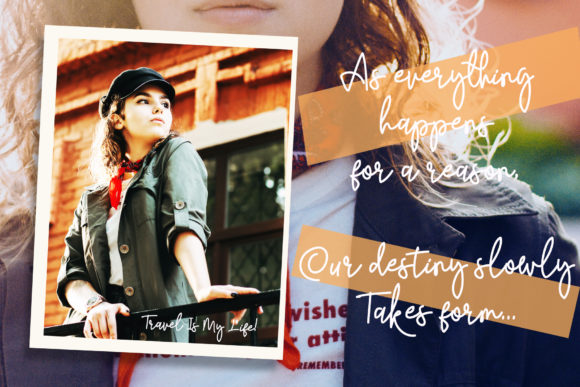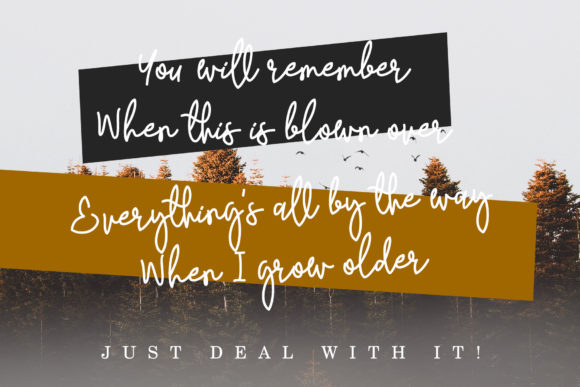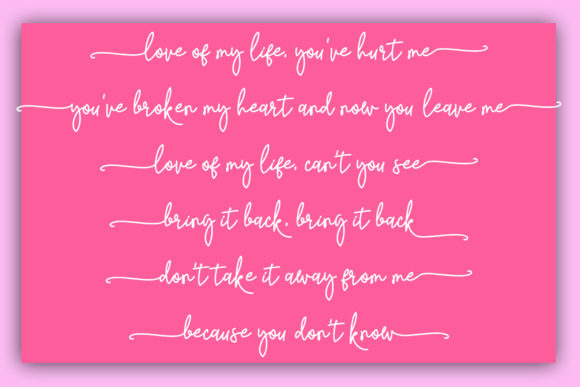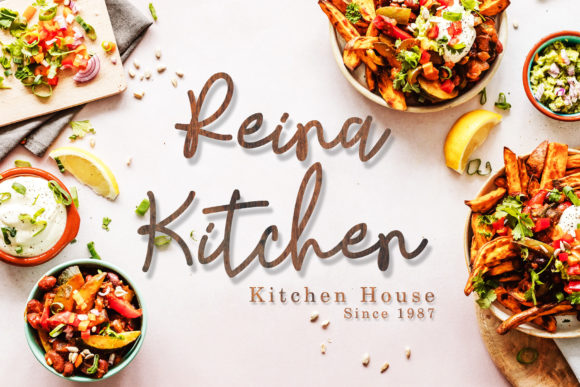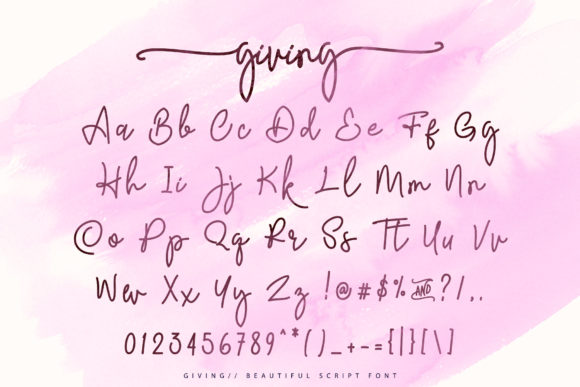
The Perfect Script Font for Your Next Design Project
Have you ever sat at your desk, staring blankly at a blank canvas, waiting for inspiration to strike? We’ve all been there. The blank page can be intimidating, but it’s moments like these that remind us why we love being creative in the first place. The thrill of bringing an idea to life, the satisfaction of seeing it come together – it’s a feeling like no other.
For designers, finding the right tools can make all the difference. That’s where the Giving Script Font comes in – a beautiful, elegant font that’s perfect for adding a touch of sophistication to your designs. With its natural, yet refined feel, this font is sure to elevate your work and make it stand out from the crowd. Whether you’re working on a wedding invitation, a branding project, or anything in between, the Giving Script Font is a valuable addition to your design toolkit.
Giving Script Font Key Features
- Unique Characteristics: Giving Script Font features a beautiful, elegant script design with intricate connections between letters, giving it a highly legible and visually appealing appearance.
- Kerning and Ligatures: Giving Script Font includes advanced kerning and ligature features, ensuring that letters and letter combinations are displayed with precision and elegance.
Giving Script Font Review
I’ve had the chance to work with the Giving Script Font, and I have to say it’s a beautiful addition to any design project. ✨ The flowing lines and elegant curves make it perfect for creating a warm and inviting atmosphere. ✨ It’s especially great for titles, headings, and body text where you want to convey a sense of sophistication and style.
However, there are a few limitations to consider. ⚠️ For one, the font can be a bit too ornate for certain projects. It may overpower the rest of the design and detract from the message you’re trying to convey. ⚠️ Additionally, the font doesn’t come in as many weights or styles as some other popular script fonts, which can limit your options for creating contrasting text elements.
Here are a few things to keep in mind when working with Giving Script Font:
- Best used for titles, headings, and body text where you want to convey a sense of elegance and sophistication.
- May be too ornate for certain projects, so use sparingly.
- Doesn’t come in as many weights or styles as some other popular script fonts.
Overall, I think the Giving Script Font is a great choice for designers looking to add a touch of elegance to their projects. Just be sure to use it thoughtfully and consider the limitations it may have.
Tips for Getting the Most Out of it
Here are some tips to help you get the most out of the “Giving Script Font”:
- Use it sparingly to add a touch of elegance to your design.
- Combine it with other fonts for a unique and eye-catching look.
- Experiment with different font sizes and colors to create a visually appealing effect.
The “Giving Script Font” is perfect for:
- Special occasion announcements.
- Personalized gifts and cards.
Alternatives to Giving Script Font
Great Vibes is a modern script font that works well for titles and headings. It’s perfect for creative and playful designs, such as invitations, magazines, and social media graphics. Unlike Giving Script Font, Great Vibes has a more relaxed and casual feel, making it ideal for informal designs.
Alex Brush is a beautiful, elegant script font that’s perfect for luxury brands, weddings, and high-end designs. It’s more refined and sophisticated compared to Giving Script Font, making it suitable for formal events and corporate communications.